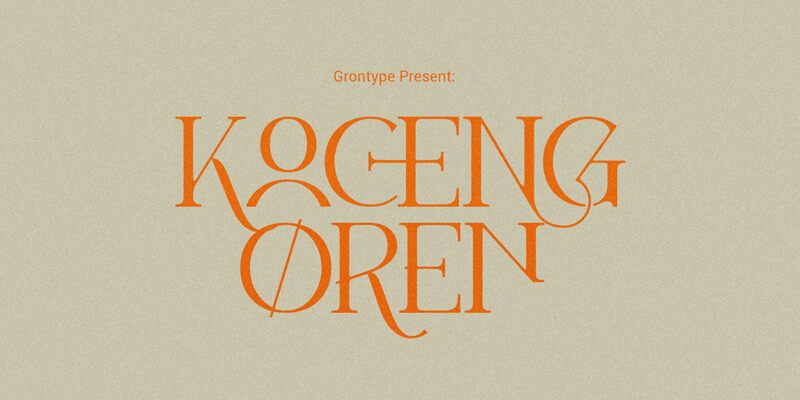
Koceng Oren, a creation by Grontype, is a serif font that exudes elegance and readability. Its serifs are tastefully crafted, providing a classic touch that complements its modern curves. The font's letters boast a dynamic flow, creating an inviting rhythm in text that captures the reader's eye. This harmonious blend of traditional and contemporary design results in a versatile typeface suitable for a wide array of applications.
The aesthetic appeal of Koceng Oren lies in its potential to add sophistication to various design projects. Whether gracing the pages of a novel, highlighting important messages in marketing materials, or adding character to branding efforts, this font stands out for its stylish flair and legibility. Its distinct personality makes it ideal for those seeking to impart an air of refinement without sacrificing approachability in their designs.